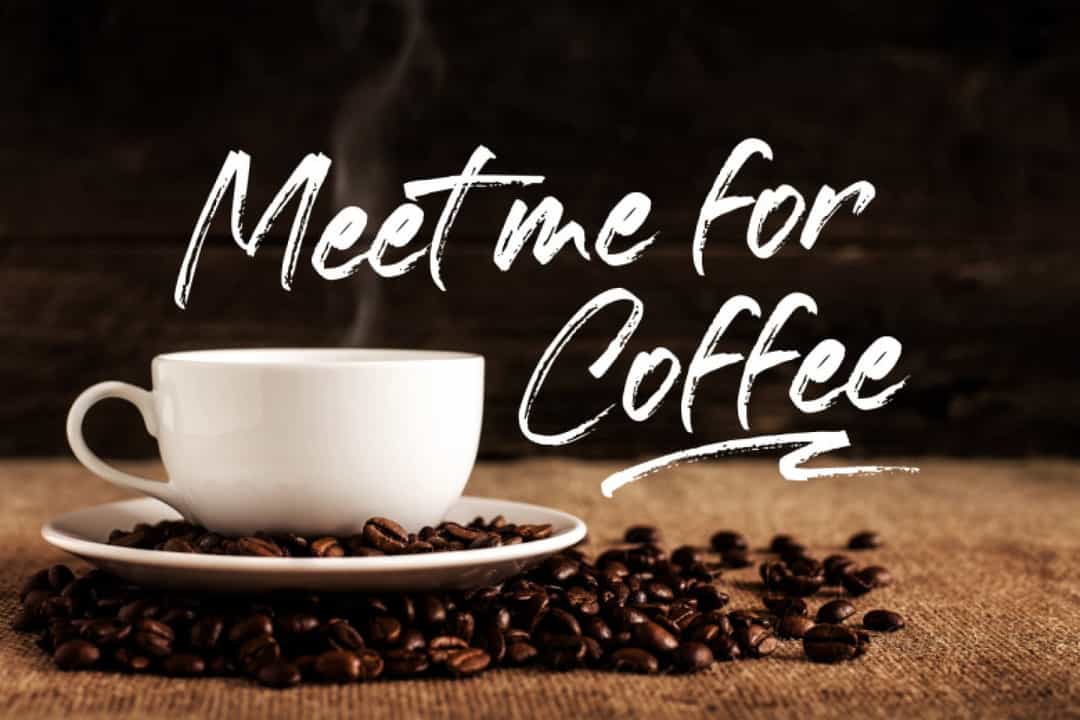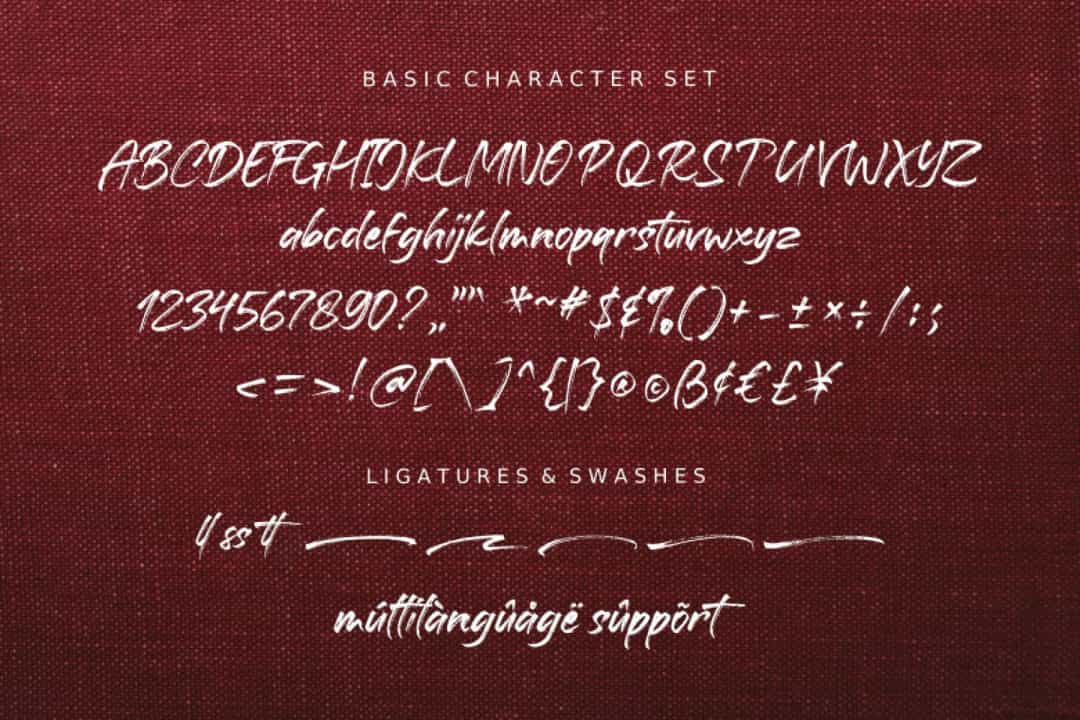
Bill Smith is a quick writing brush script font with texture and swashes that gives any project or design authentic features. Perfect for wedding invitations, branding posters bulletins business cards stationary logos stationery packaging designs etc – Bill Smith can help your designs appear genuine with genuine features!